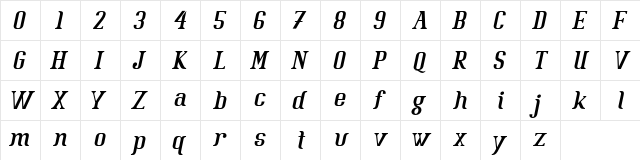
Batavia Glamore BOLD ITALIC Bold Italic
Design Context for Batavia Glamore BOLD ITALIC Typeface
Batavia Glamore BOLD ITALIC is a composed and adaptable typeface that performs quietly and consistently across a wide range of design contexts. The dynamic lean of this cut emphasises speed and emphasis in any layout. The heavy weight commands attention and anchors typographic hierarchies.
Pro Tip: Use Batavia Glamore BOLD ITALIC for emphasis, pull quotes, and subheadings where its slanted energy can add rhythm to the layout.